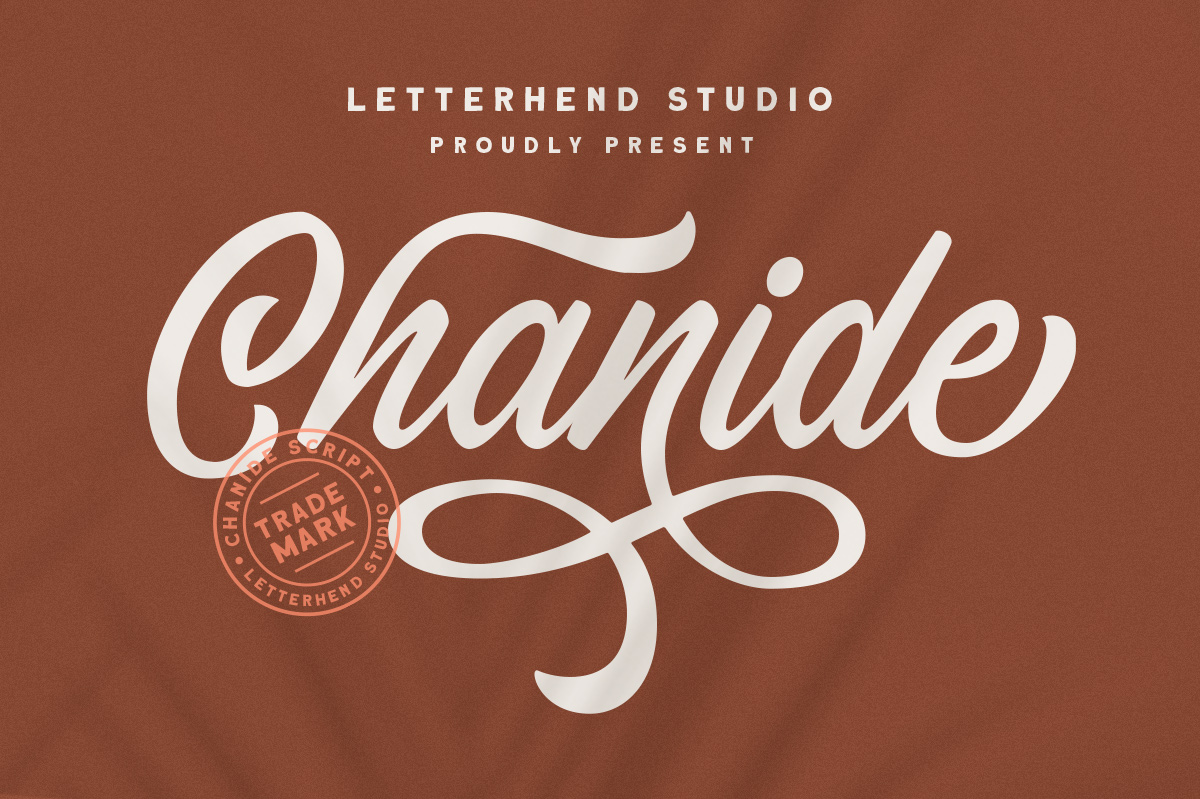
Chanide Script Font
Chanide Script Font is widely used in luxury fashion magazines, elegant wedding calligraphy, sophisticated business signatures, premium product branding, high-end cosmetic packaging, refined restaurant menus, artistic poster designs, and exclusive event invitations.
Chanide Script Font is an exciting typeface that embodies contemporary elegance with its flowing sophistication and refined script character. This font combines modern luxury with timeless grace, making it perfect for brands that want to convey exclusivity, sophisticated taste, and premium quality in their distinguished visual communications.
The Chanide Script Font family includes Regular, Bold, Light, Italic, Ornate, Swash, Condensed, and Luxury variants. This sophisticated collection allows designers to create elegant typographic hierarchies that maintain script consistency while offering refined flexibility for various luxury and premium applications.
The distinctive sophistication of Chanide Script Font lies in its masterful balance between flowing script tradition and contemporary luxury aesthetics. Each letterform demonstrates exquisite attention to detail with perfectly proportioned curves and elegant connections that reflect modern calligraphic excellence. The font's graceful flow and premium character create visual luxury that speaks to audiences seeking authentic quality and sophisticated design solutions.
Luxury brands and premium service providers choose Chanide Script Font for its ability to communicate exclusivity while maintaining contemporary relevance. The typeface performs magnificently in high-end fashion communications, luxury hospitality materials, premium beauty branding, and sophisticated lifestyle publications. Its elegant aesthetic resonates with affluent consumers who value refined taste, contemporary luxury, and exceptional design quality.
The premium craftsmanship of Chanide Script Font includes sophisticated ligatures, elegant swashes, and refined spacing that enhance the natural beauty of luxury script typography while maintaining the contemporary character essential to modern premium communication. These refined features ensure that text maintains the flowing elegance and sophisticated presence that defines authentic luxury branding while meeting the highest standards of professional design for upscale commercial applications.